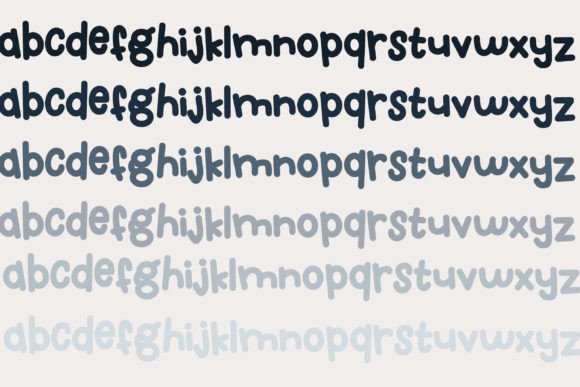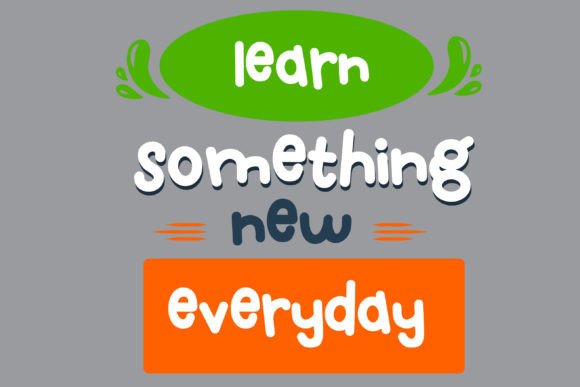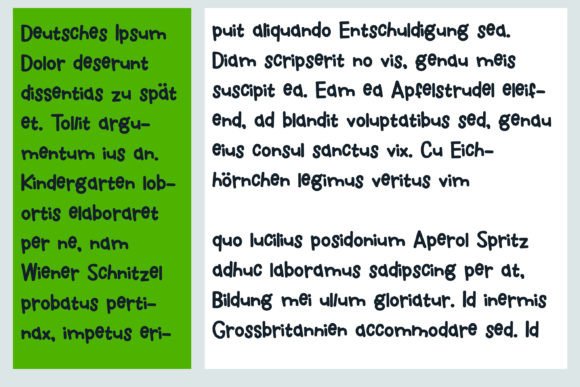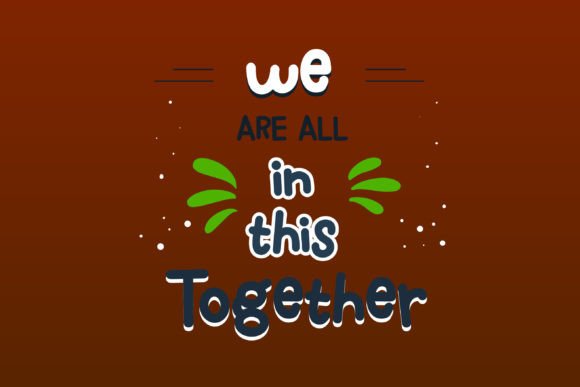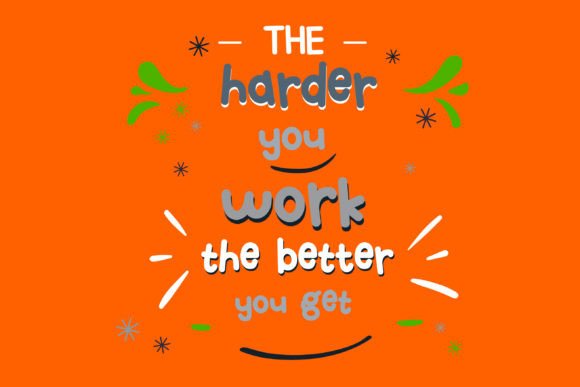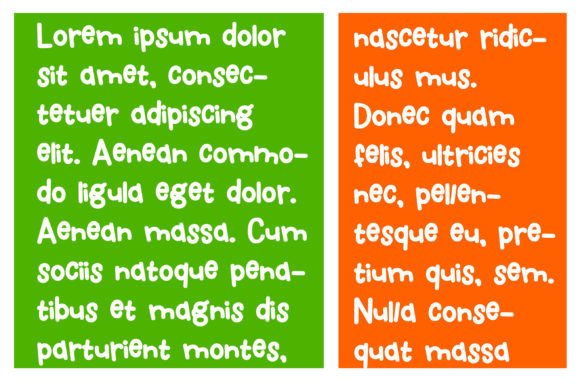
The Art of Handwritten Typography
As a designer, there’s nothing quite like the thrill of discovering a new font that sparks your creativity. It’s that moment when the perfect combination of style and functionality comes together, and suddenly, a project that seemed daunting becomes a breeze. For me, that moment came when I stumbled upon the Alphagram Font – a beautiful, hand-crafted sans serif that adds a touch of whimsy to any design.
Handwritten fonts like Alphagram Font are perfect for adding a personal touch to invitations, greeting cards, and other special occasions. Their unique, hand-written feel makes them stand out from more traditional fonts, and their versatility means they can be used for a wide range of projects. Whether you’re a seasoned designer or just starting out, the Alphagram Font is an excellent addition to your toolkit.
Alphagram Font Key Features
- Character Set: The Alphagram Font features a unique character set that includes a wide range of letters, numbers, and symbols, making it suitable for use in various design projects.
- Unique Characteristics: Alphagram Font features a distinctive, hand-drawn style with irregular shapes and organic lines, giving it a unique and creative look.
- Font Style: The font is available in two styles: Regular and Bold, allowing designers to choose the perfect style to suit their design needs.
Alphagram Font Review
As a designer, I was excited to dive into the Alphagram Font and see what it had to offer. ✨ One of the things that stands out is the unique, playful aesthetic of the font. It’s perfect for adding a touch of whimsy to your designs, from children’s books to branding materials. The font’s irregularities give it a hand-drawn feel that’s both charming and memorable.
Another thing that works well is the font’s versatility. It comes in a range of weights and styles, making it easy to customize to suit your design needs. The font is also highly legible, even at small sizes, which is a must for any successful font.
- Unique, playful aesthetic
- Hand-drawn feel
- Highly legible
- Range of weights and styles
- May not be suitable for formal or corporate designs
- Can be difficult to read at very large sizes
Overall, I think the Alphagram Font is a great addition to any designer’s toolkit. It’s perfect for adding a touch of personality to your designs, and its versatility makes it easy to use in a variety of contexts. However, it may not be the best choice for formal or corporate designs, and it can be a bit tricky to use at very large sizes. ⚠️ With a little practice and patience, though, it’s definitely worth the investment.
The Alphagram font is perfect for:
- Creatives who want to add a touch of whimsy to their designs.
- Brands looking to create a unique and memorable visual identity.
- Designers who want to add a sense of playfulness to their typography.
Some popular use cases for the Alphagram font include:
- Children’s book covers and illustrations.
- Branded merchandise, such as t-shirts and stickers. Alternatives to Alphagram Font for Designers
Great Vibes is a modern calligraphy font that is ideal for use in branding, advertising, and packaging design. Its flowing lines and elegant feel make it perfect for creating a sophisticated and luxurious look.
Compared to Alphagram Font, Great Vibes has a more refined and polished feel, making it better suited for high-end designs. Alphagram Font, on the other hand, has a more playful and quirky feel that is ideal for creative and whimsical designs.